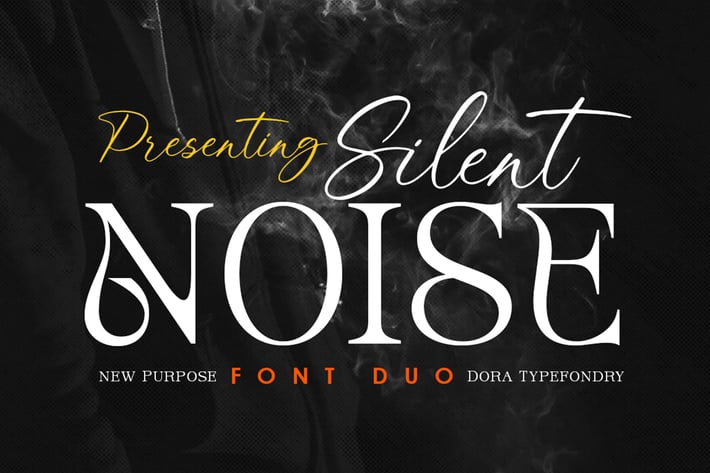
Silent Noise// Modern Font Duo
Introducing Silent Noise, a stunning duo font that combines the timeless elegance of a serif typeface with the flowing elegance of calligraphy. This versatile font set includes two complementary styles that work together seamlessly to add sophistication and charm to your design projects, so you can create logos, social media posts, invitations, branding, magazines, product packaging and many other projects.
Silent Noise Serif
* Silent Noise Script